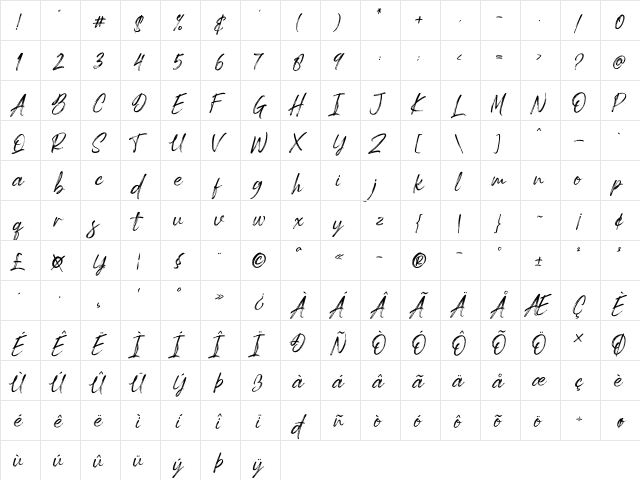
Spartwell Regular
Design Context for Spartwell Typeface
Spartwell is a composed and adaptable typeface that performs quietly and consistently across a wide range of design contexts.